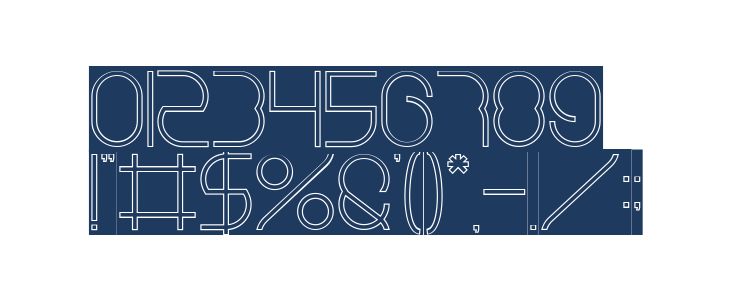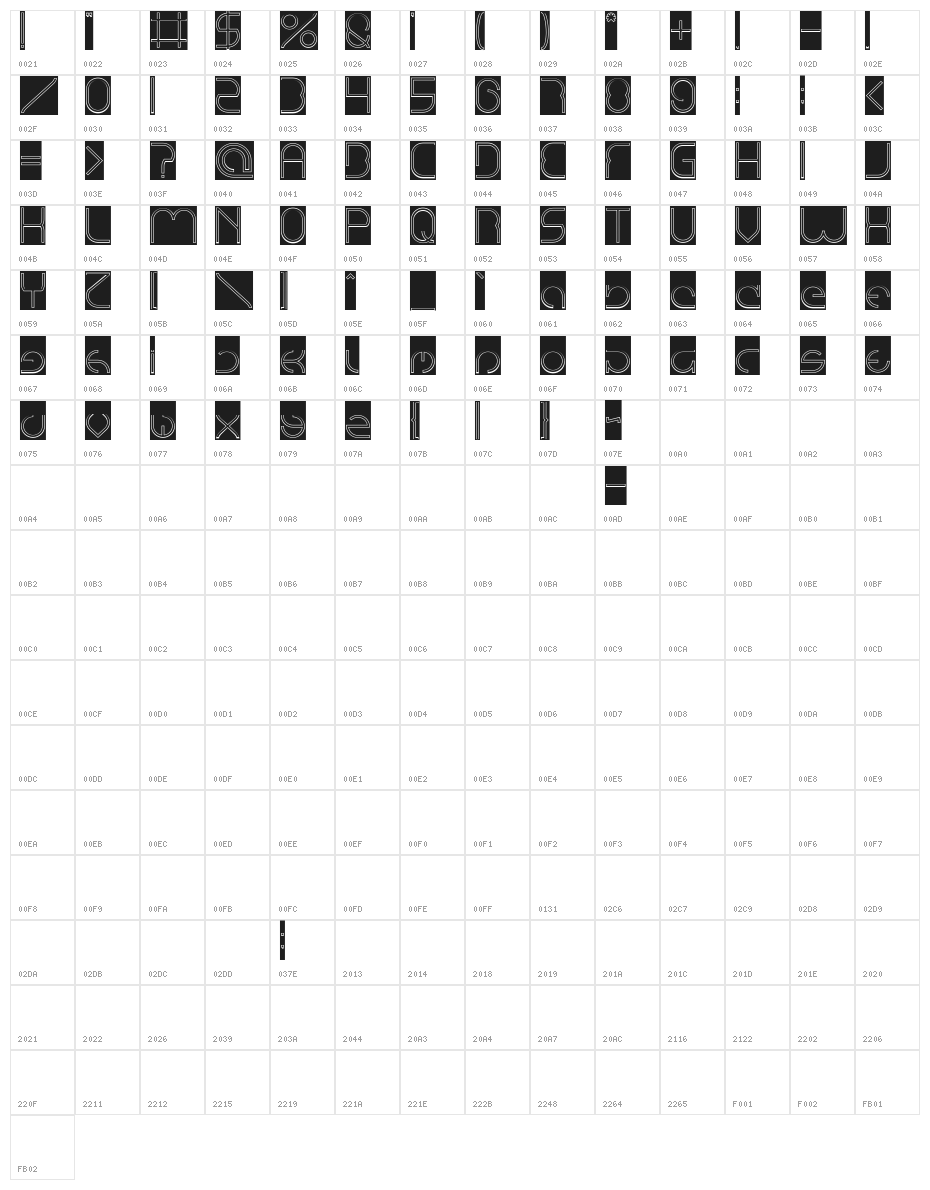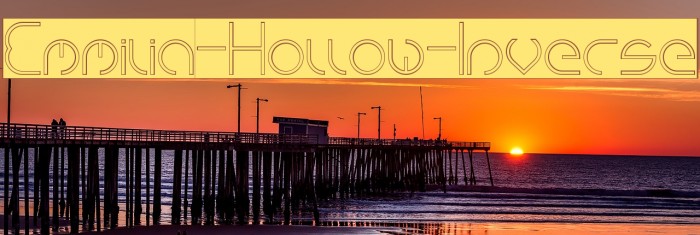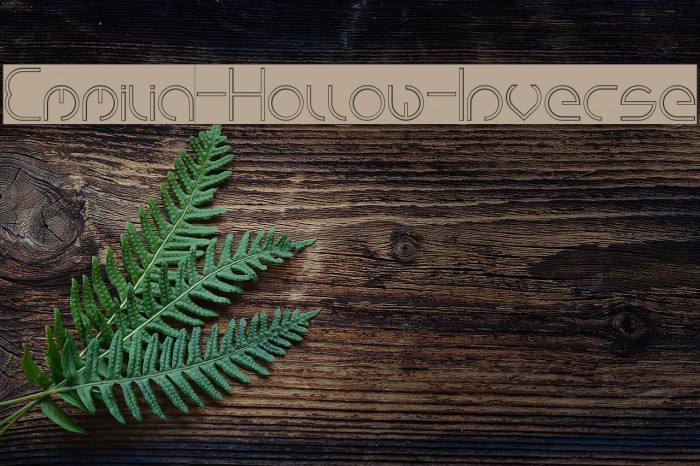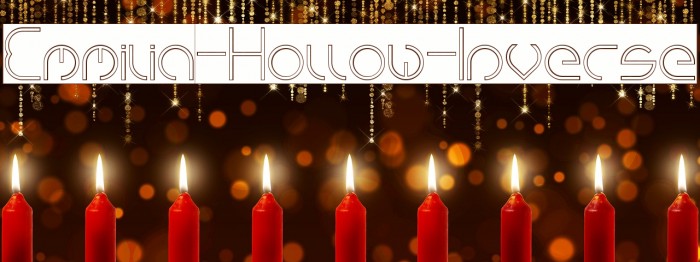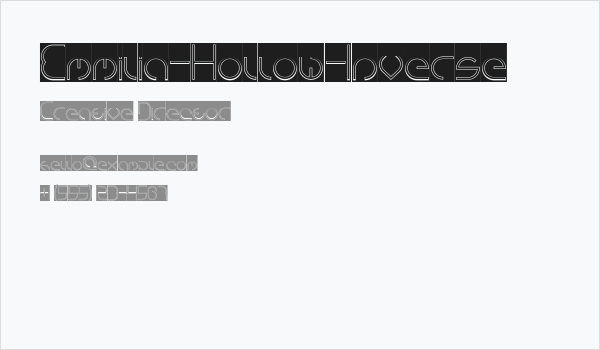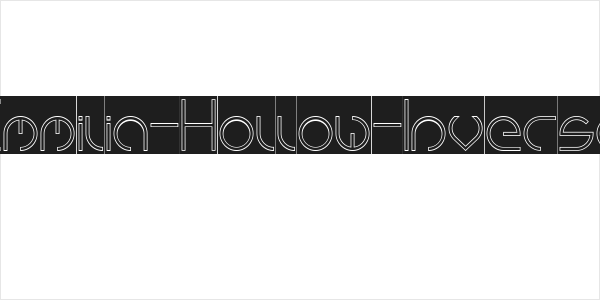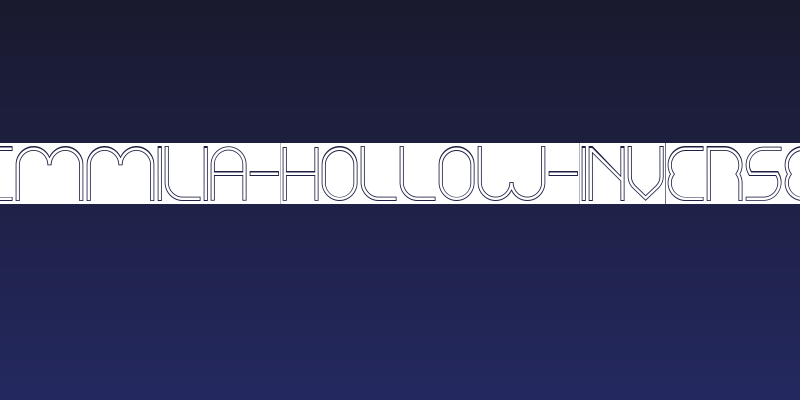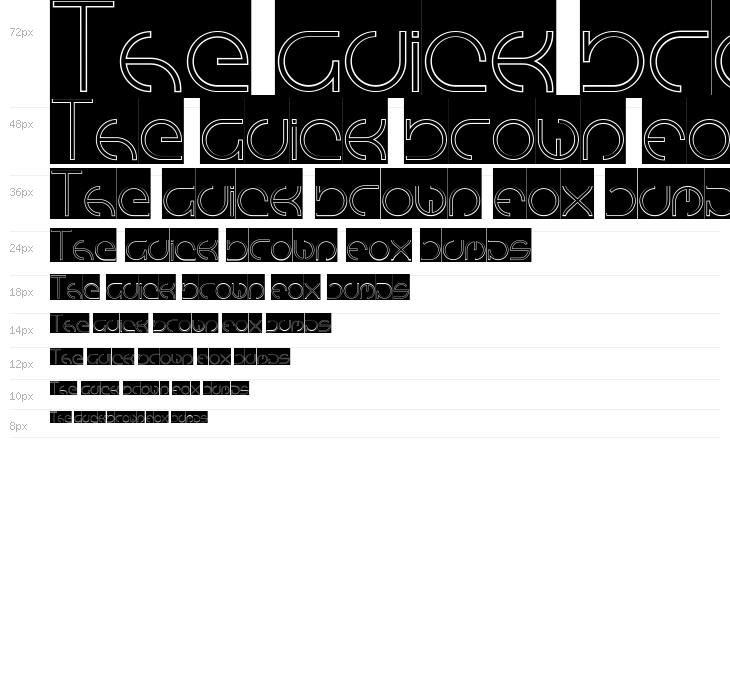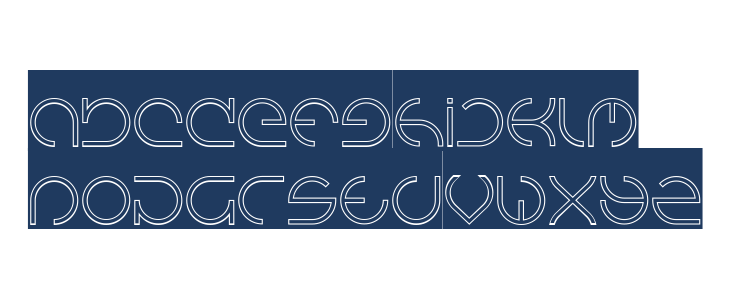
Emmilia-Hollow-Inverse Font
Emmilia-Hollow-Inverse Description
This font features a unique hollow design with an inverse style, creating a striking visual effect. The characters are outlined, giving them a modern and futuristic appearance. The uppercase and lowercase letters maintain a consistent geometric structure, with smooth curves and sharp angles. Numbers and special characters follow the same design principles, ensuring uniformity across all glyphs. The font's hollow nature makes it ideal for applications where a bold yet airy look is desired. Its distinct style can add a contemporary edge to any project.
| Proposed Projects | Ideal for futuristic branding, tech-related designs, posters, and digital media. |